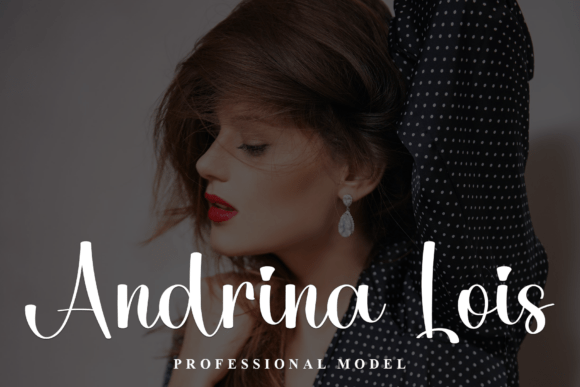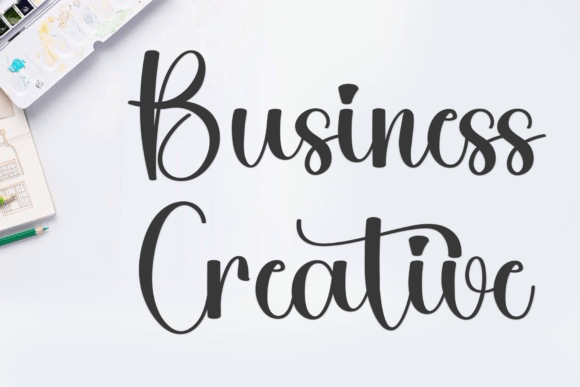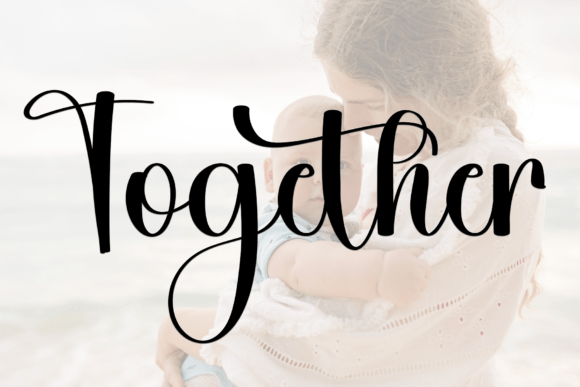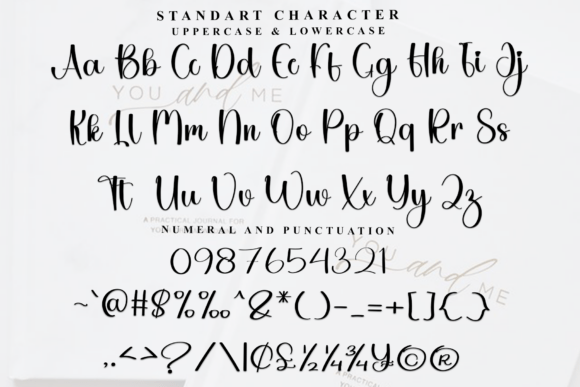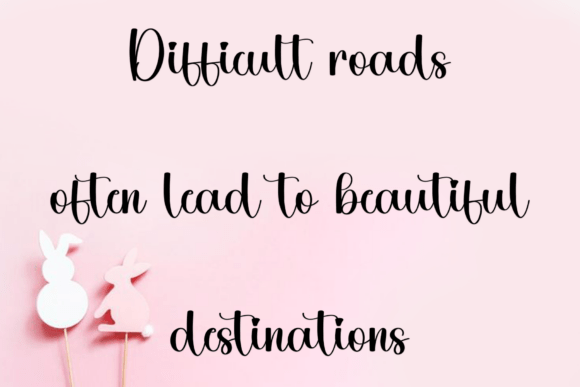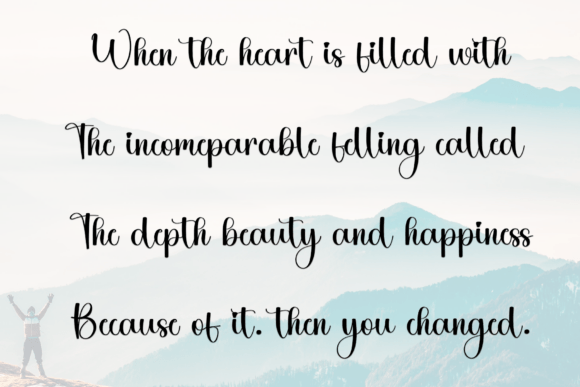
Introducing Automatic Font: The Timeless Handwritten Choice for Designers and Crafters
Are you a designer or crafter looking for the perfect font to elevate your creative projects? Look no further than Automatic Font, a lovely and timeless handwritten font that’s sure to capture the attention of your audience. In this article, we’ll dive into the world of Automatic Font, exploring its unique features, benefits, and uses, and why it’s the best choice for creating eye-catching logos, branding, and quotes.
The Unique Charm of Automatic Font
Automatic Font is a beautifully crafted handwritten font that exudes a sense of elegance and sophistication. Every letter has a unique and beautiful touch, which sets it apart from more traditional fonts. The font’s distinctive character is perfect for adding a personal touch to your designs, making them stand out from the crowd. Whether you’re creating a logo, branding materials, or quotes, Automatic Font is the perfect choice for designers and crafters who want to add a touch of personality to their work.
Why Choose Automatic Font?
So, why should you choose Automatic Font for your design projects? Here are just a few reasons:
- Timeless appeal: Automatic Font has a timeless quality that won’t go out of style. Its classic handwritten look is perfect for creating designs that are both modern and nostalgic.
- Elegant and sophisticated: The font’s elegant and sophisticated feel makes it perfect for high-end branding, logos, and quotes.
- Unique character: Every letter in Automatic Font has a unique and beautiful touch, which adds a personal touch to your designs.
- Versatile: Automatic Font is versatile and can be used for a wide range of design projects, from logos and branding to quotes and social media graphics.
Uses for Automatic Font
Automatic Font is a versatile font that can be used for a wide range of design projects. Here are some ideas to get you started:
- Logos: Create a memorable logo for your business or brand with Automatic Font.
- Branding: Use Automatic Font to create consistent branding across all your marketing materials.
- Quotes: Add a touch of elegance to your quotes and social media graphics with Automatic Font.
- Social media graphics: Use Automatic Font to create eye-catching social media graphics that will help you stand out from the crowd.
- Stationery: Add a personal touch to your stationery with Automatic Font.
Tips for Using Automatic Font
Here are some tips for using Automatic Font in your design projects:
- Use it sparingly: Automatic Font is a statement font, so use it sparingly to add emphasis to your designs.
- Experiment with colors: Try pairing Automatic Font with different colors to create a unique look.
- Mix and match: Mix and match Automatic Font with other fonts to create a unique look.
- Pay attention to spacing: Pay attention to the spacing between letters and words to ensure your design looks elegant and sophisticated.
In conclusion, Automatic Font is a timeless handwritten font that’s perfect for designers and crafters looking to add a touch of elegance and sophistication to their design projects. With its unique character, versatile uses, and timeless appeal, Automatic Font is the best choice for creating eye-catching logos, branding, and quotes. Whether you’re a seasoned designer or just starting out, Automatic Font is a must-have font for any creative project.